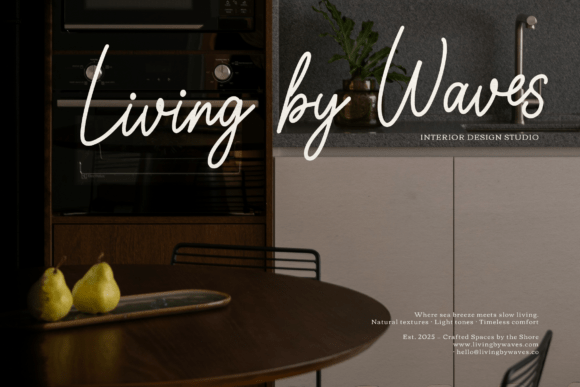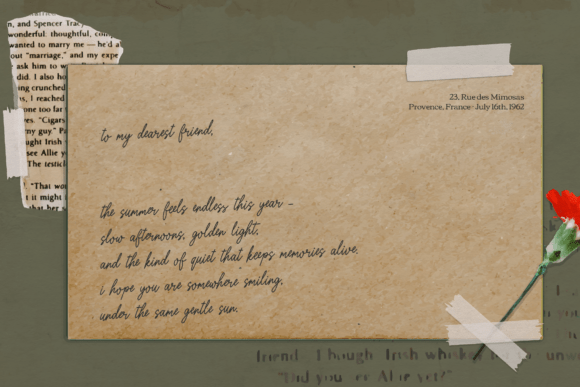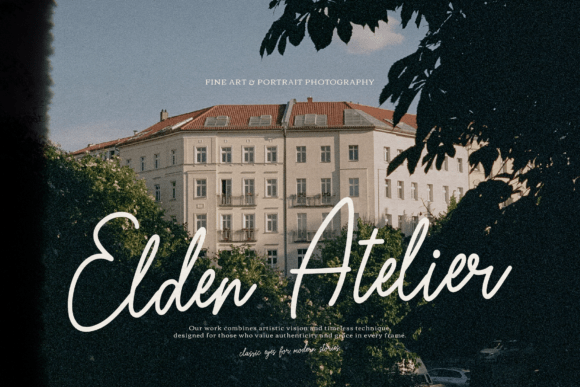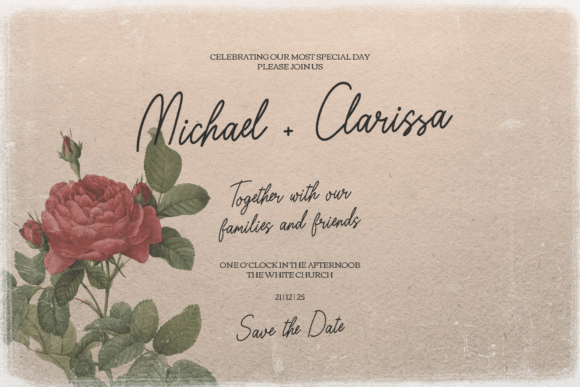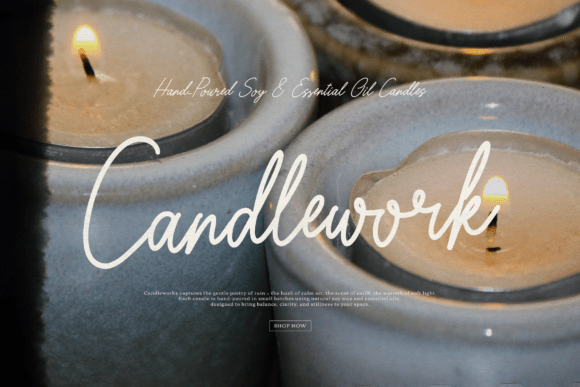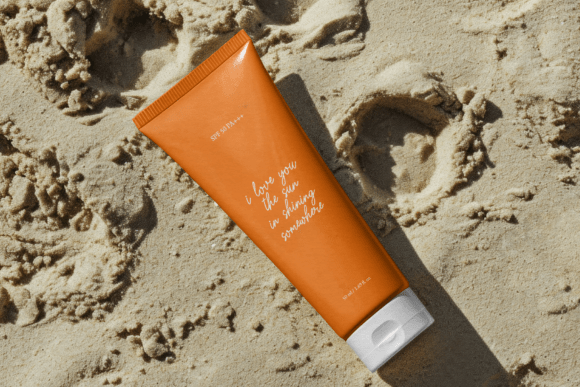
Introduction to Forgotten Shores Font
Forgotten Shores is a vintage handwritten font, suitable for any projects such as: logos, branding projects, homeware designs, product packaging, mugs, quotes, posters, shopping bags, t-shirts, book covers, name card, invitation cards, greeting cards, label, photography, watermark, special events, and all your other lovely projects that need a Vintage taste.
Key Features of Forgotten Shores Font
Why Choose Forgotten Shores Font?
Forgotten Shores Font offers exceptional quality and versatility, making it a valuable addition to your design toolkit. Whether you’re creating for personal projects or commercial use, Forgotten Shores Font delivers professional results.